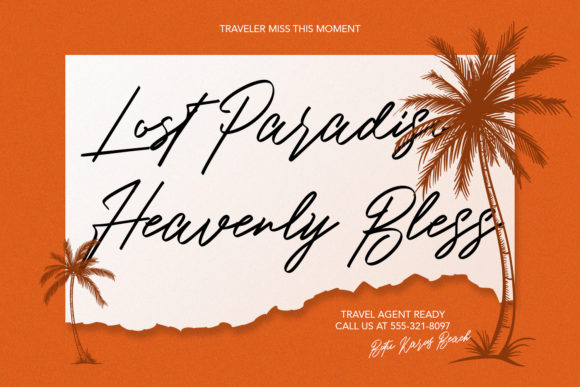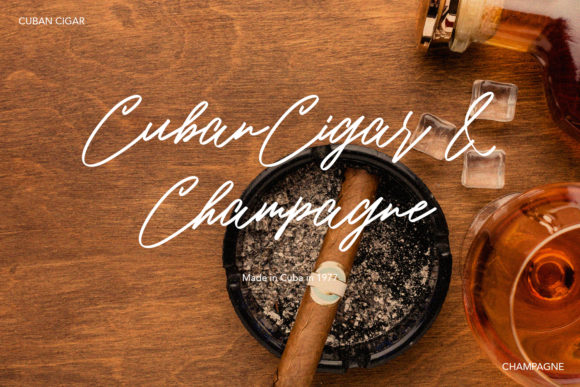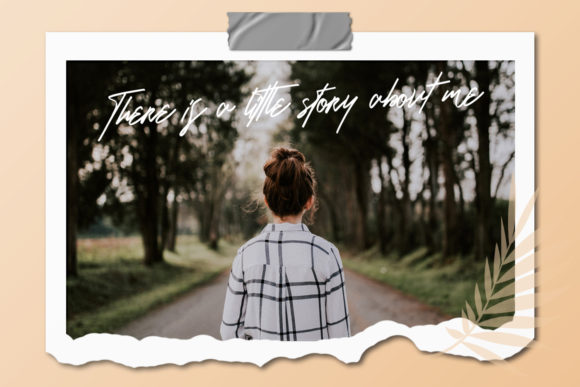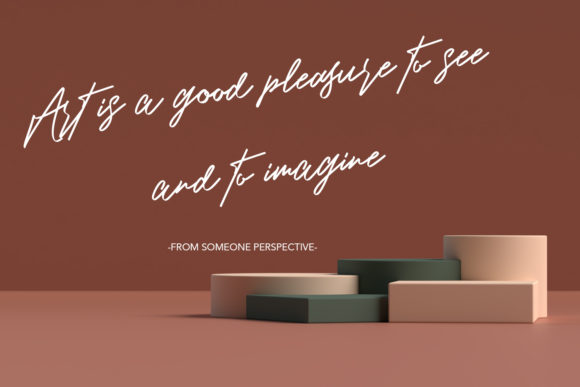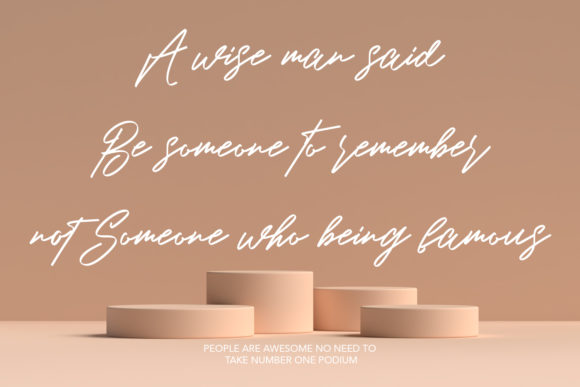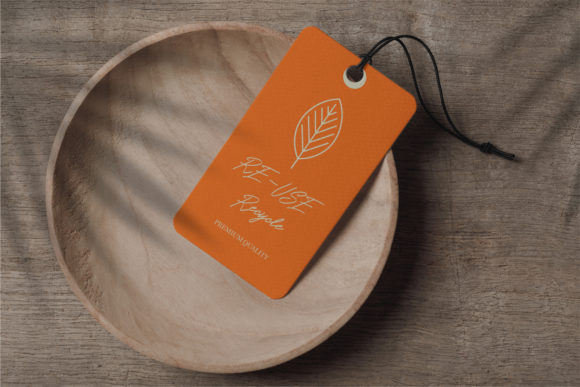
Introduction to Hasta Lovista Font Font
Fonts play a crucial role in design, and the Hasta Lovista Font font is a typeface that brings both character and versatility to any project. Whether you’re working on a branding project, a website, or a print design, the Hasta Lovista Font font offers a unique style that can elevate your work.
Hasta Lovista is a refined and fashionable handwritten font.
It has a well marked and cursive style and it is the ideal choice for making ravishing designs It looks beautiful on a variety of designs requiring a personalized style, such as wedding invitations, thank you cards, weddings, greeting cards, logos and so on.
Key Features of Hasta Lovista Font Font
Why Choose Hasta Lovista Font Font?
The Hasta Lovista Font font is more than just a typeface – it’s a design tool that helps you communicate your message with style and clarity. Its unique character set and versatile design make it suitable for a wide range of applications, from elegant invitations to bold headlines.
With its carefully crafted letterforms and balanced proportions, the Hasta Lovista Font font ensures readability and visual appeal across all mediums.
What makes Hasta Lovista Font font special?
The Hasta Lovista Font font stands out with its unique design, exceptional readability, and versatility across various design applications.